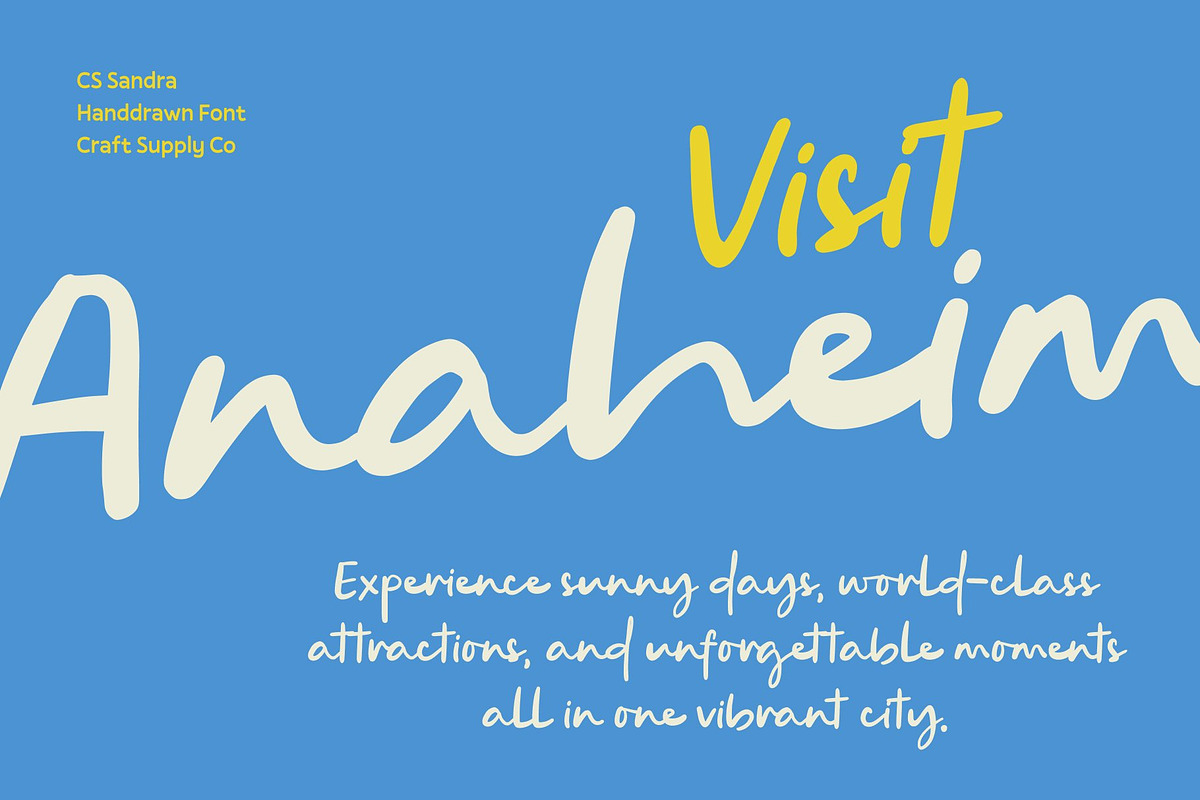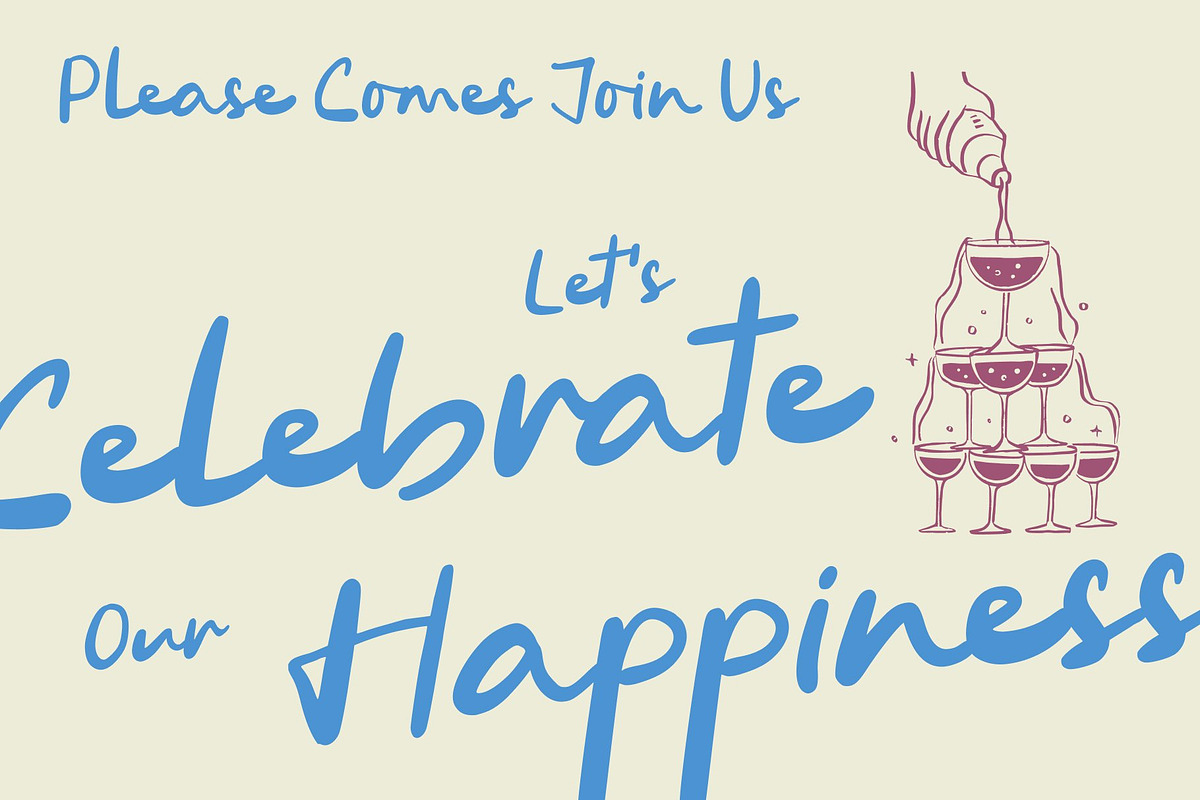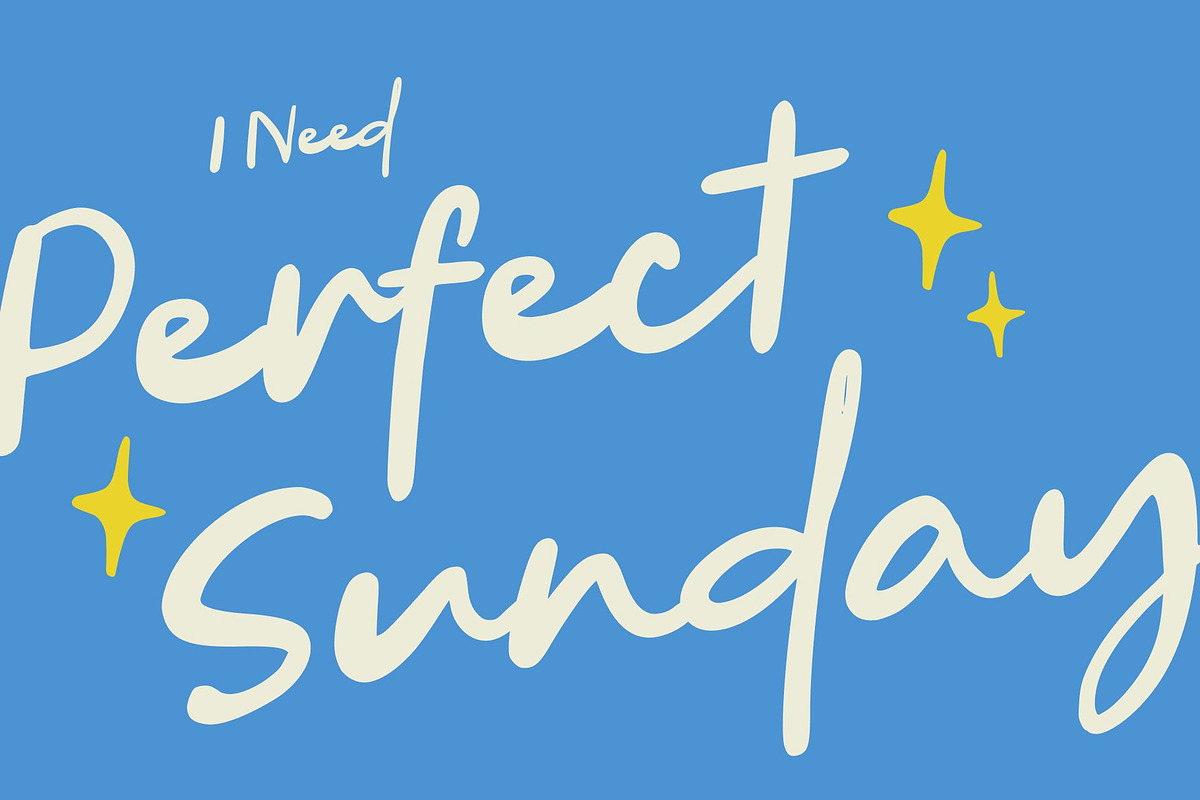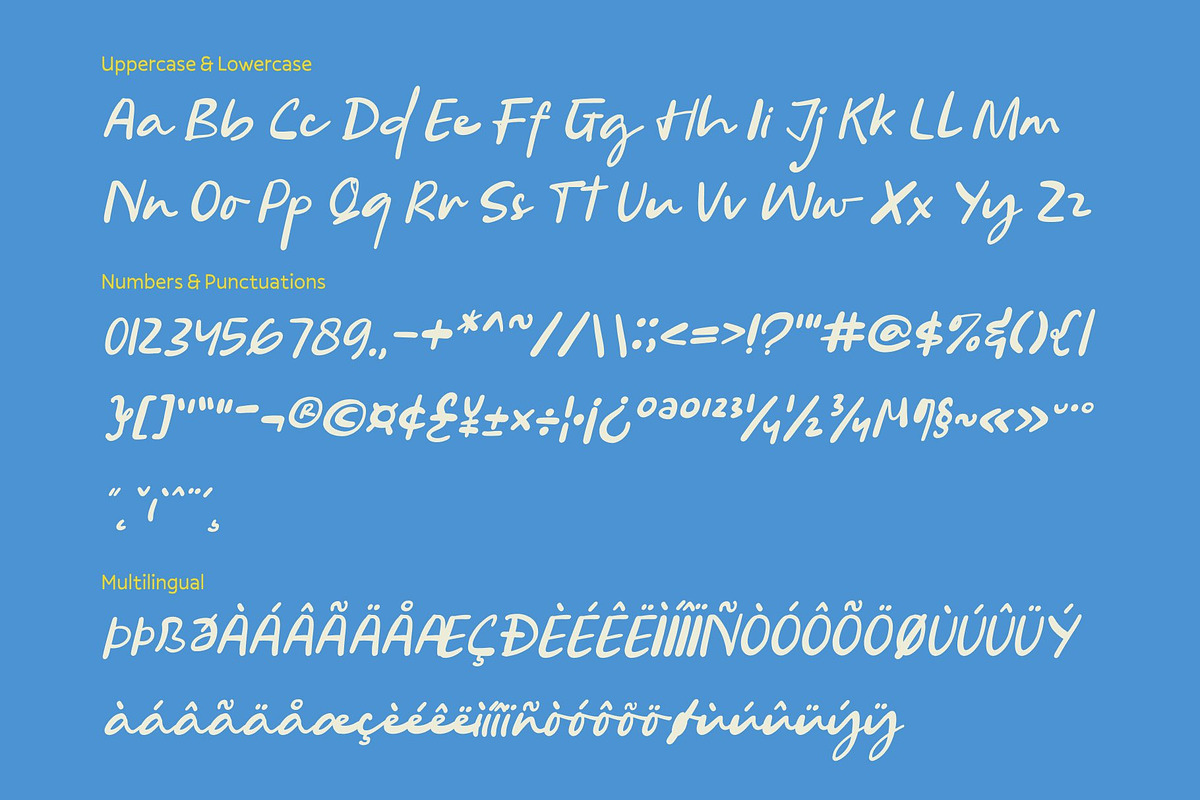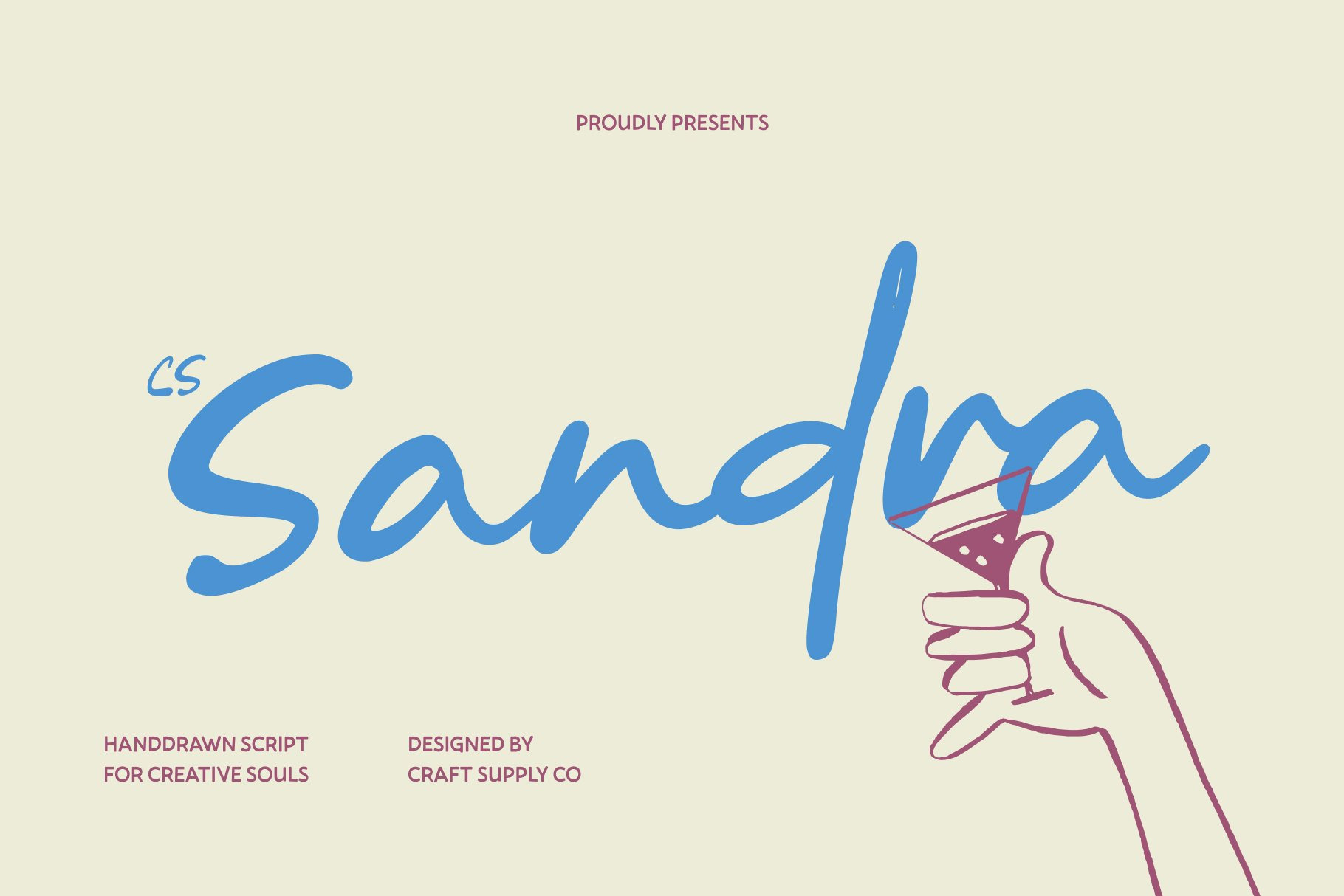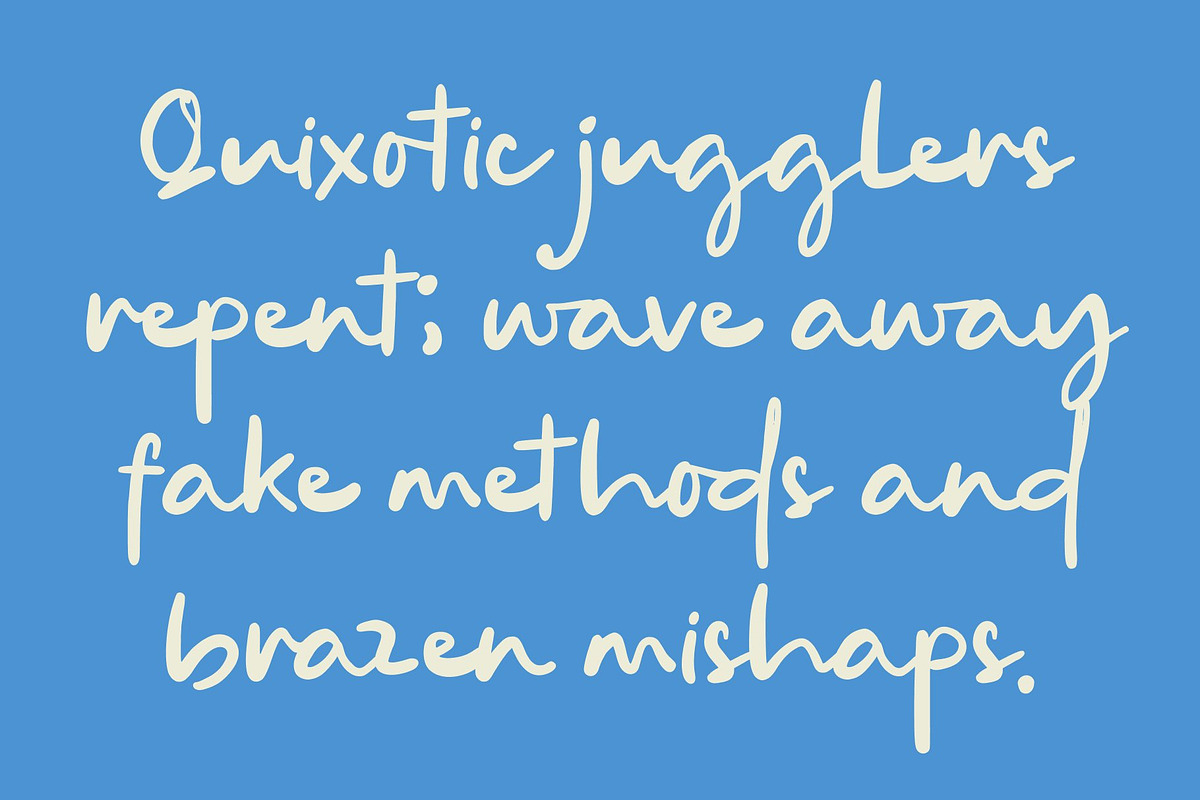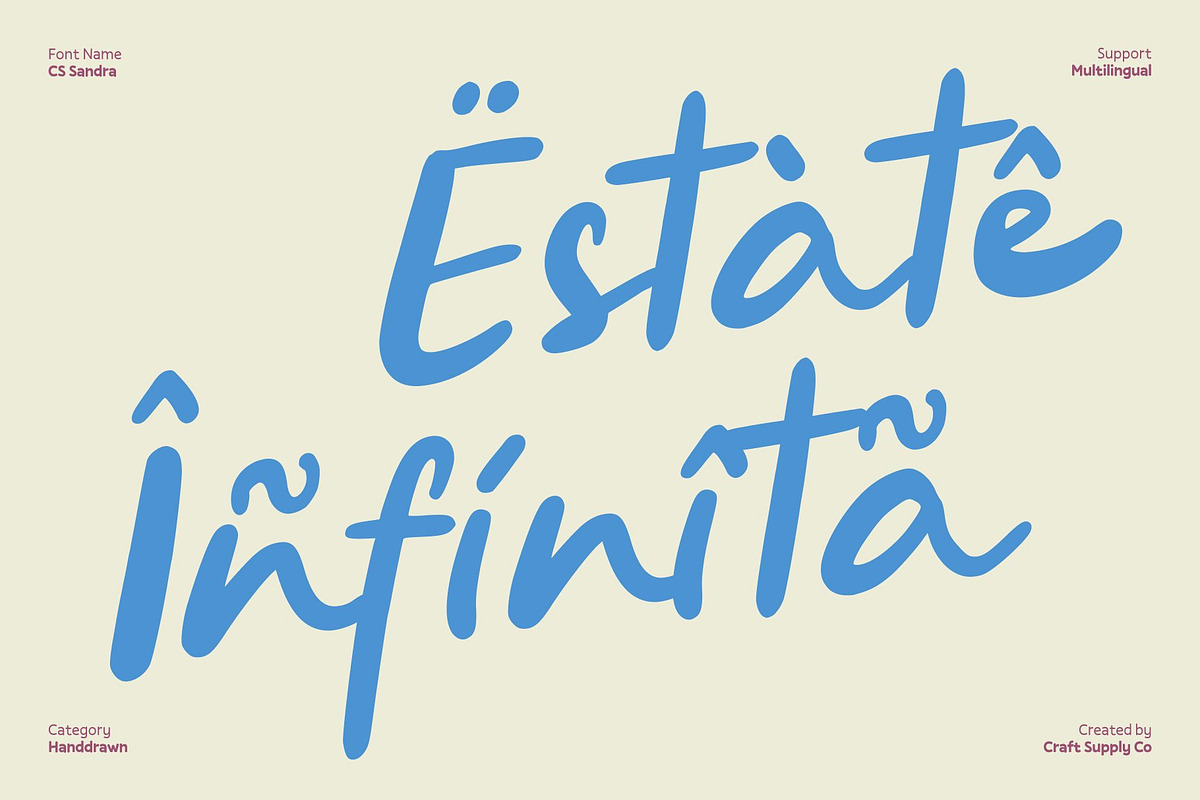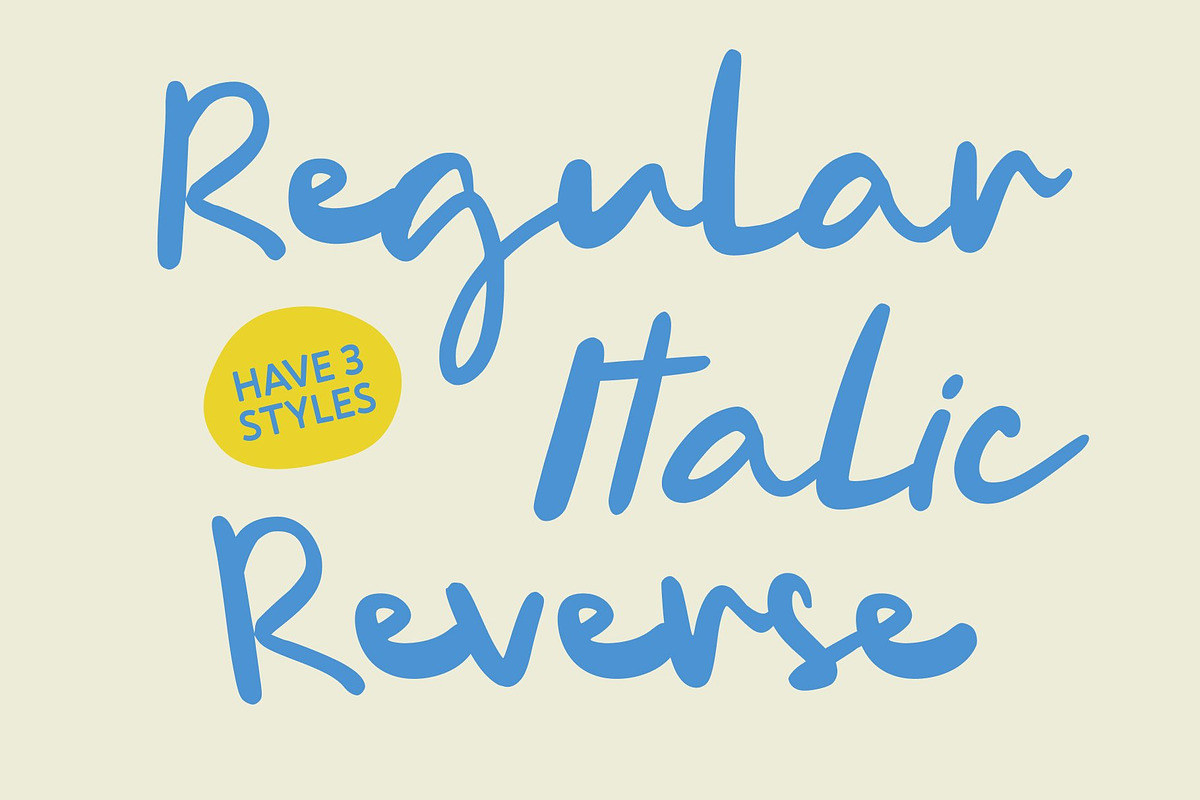
CS Sandra – Handwritten Script Font
CS Sandra – Relaxed Summer Vibes with Natural Handwritten Warmth
Summer Script Font with Easygoing Character This is a relaxed summer script font designed to radiate warmth, comfort, and effortless charm. Inspired by natural handwriting and laid-back summer moments, this font delivers a friendly and inviting personality that feels light and carefree. Its smooth flow and casual rhythm make this font perfect for designs that want to communicate relaxation, joy, and a sunny lifestyle.
Natural Handwriting with Warm Expression The letterforms of this font feature organic strokes and soft connections that closely resemble real handwriting. Subtle variations in line weight add authenticity and character, giving the font a warm, human touch. This natural expression creates an approachable look that feels personal and genuine, enhancing emotional connection in any design.
Relaxed Style for Lifestyle Storytelling This font excels in relaxed and expressive compositions. Its summer-inspired script style brings an easygoing mood to layouts, making messages feel cheerful and comfortable. Whether used for short quotes or prominent headlines, the font maintains clarity while delivering a playful and relaxed aesthetic that fits perfectly with lifestyle-oriented visuals.
Perfect for Posters, Branding, and Invitations Designed for versatile casual use, this font is perfect for relaxed posters, branding, quotes, invitations, lifestyle products, and social media graphics. Its warm script form makes it especially suitable for summer campaigns, cafés, travel themes, handmade products, and creative brands.
- CS Sandra Regular
- CS Sandra Italic
- CS Sandra Reverse Italic